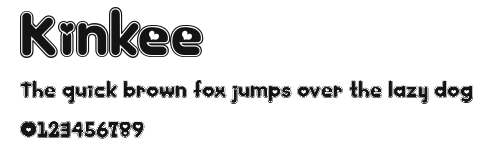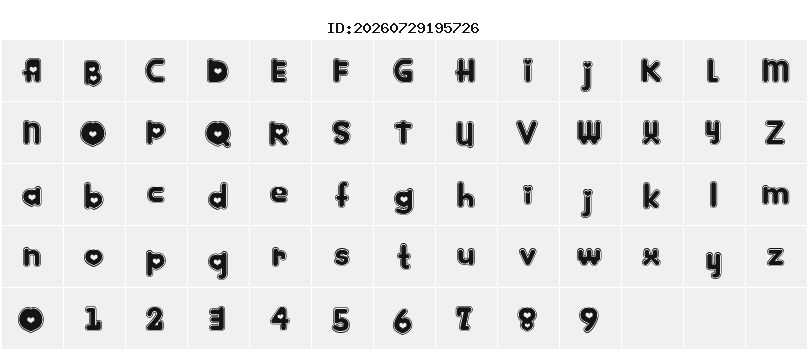
About Kinkee.ttf
Kinkee.ttf is a modern, elegant sans-serif font designed for ultimate readability and visual harmony. Perfect for branding, headlines, web design, and print materials.